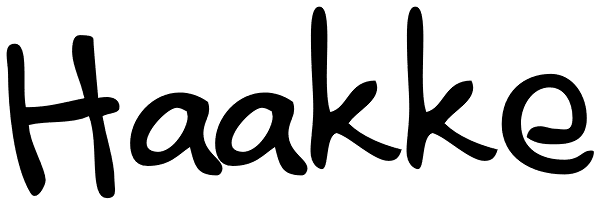
Haakke
Haakke (or Håkke) - a casual, hand drawn (Stabilo OH pen, Fine) font with 4 alternates to all upper and lower case letters (a-z + å ä ö) as well as numbers for a realistic hand written look and feel! “Ligatures” have been created for double letters...
Haakke